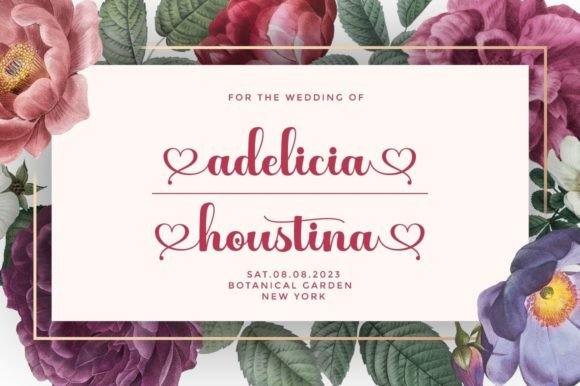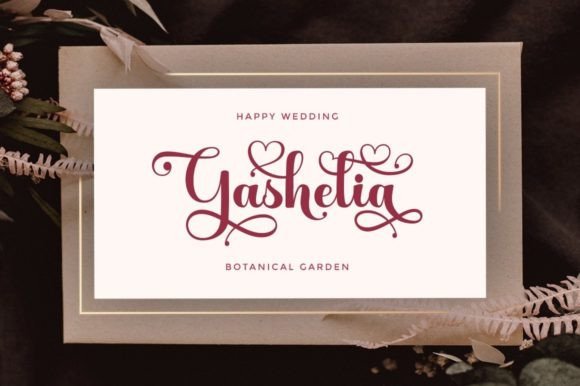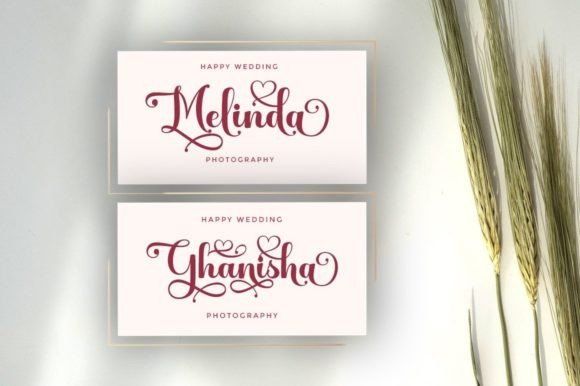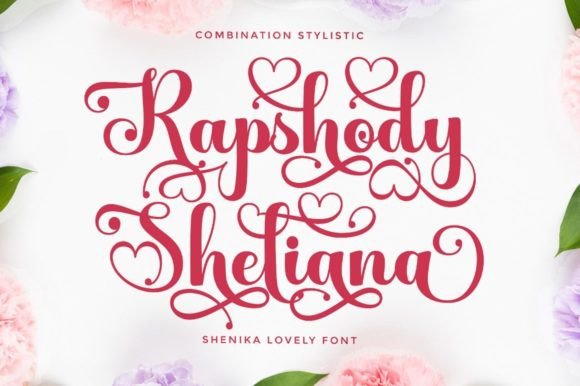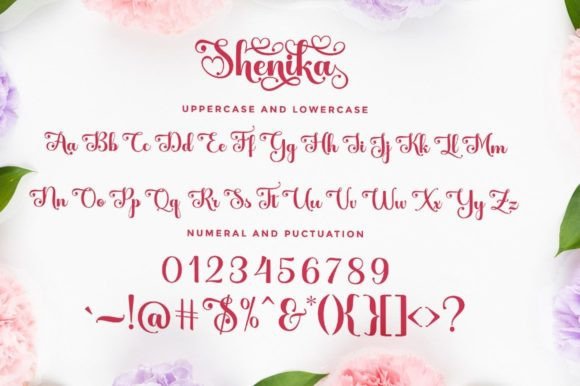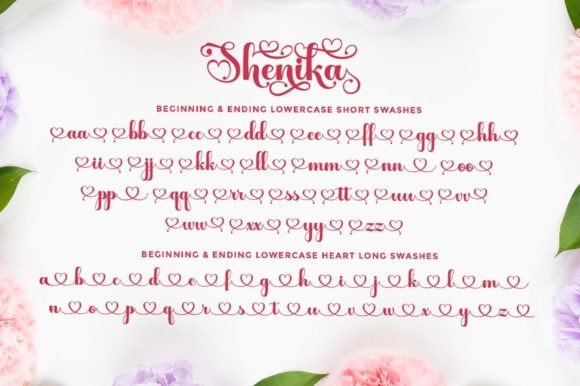
Introduction to Shenika Font
Have you ever stumbled upon the perfect design element that takes your creative project from meh to magical? That’s exactly what happened to me when I discovered the Shenika Font. Its adorable connecting hearts and wide variety of heart illustrations had me swooning. This lovely font is a design resource that’s perfect for adding a personal touch to any project, from magazines and crafts to personalized holiday decorations.
As a designer, I know how valuable it is to have a high-quality font that can elevate our work. The Shenika Font delivers, with its transparent background and free download making it a must-have in any design arsenal. Whether you’re working on a creative project or simply looking for a fun way to express yourself, this font is sure to bring a smile to your face.
Key Features of Shenika Font
- High-quality, elegant design ideal for creative projects
- Transparent background for seamless integration into various design elements
- Available for free download, making it a valuable design resource
- Includes a range of font sizes and resolutions for optimal use in various design applications
- Unique, cursive script style with subtle flair and sophistication
- Perfect for use in invitations, greeting cards, and other creative projects where a touch of elegance is desired
Honest Review: Shenika Font
As a designer, I’m always on the lookout for high-quality design resources that can elevate my creative projects. The Shenika Font has caught my attention, and I’m excited to share my honest review.
What works well: ✨ I love the elegant and sophisticated look of the Shenika Font. It’s perfect for designing luxurious and modern projects. The font also comes with a transparent background, making it easy to use and customize. The free download option is also a huge plus, making it accessible to designers of all levels.
Some limitations: ⚠️ The Shenika Font has a limited character set, which might be a drawback for designers who need a wide range of characters for their projects. Additionally, the font may not be suitable for use in large-scale or high-traffic applications.
Overall, the Shenika Font is a great design resource for designers who want to add a touch of sophistication to their creative projects. While it has some limitations, its elegant look and transparent background make it a great choice for designers who want a high-quality font without breaking the bank.
- Elegant and sophisticated look
- Perfect for modern and luxurious projects
The Shenika Font is ideal for creating high quality designs for social media, blog posts, and marketing materials. You can also use it to create a free download or a digital product. The font’s unique design makes it perfect for creative projects that require a touch of elegance and sophistication.
To get the most out of Shenika Font, use it in combination with other high quality fonts to create a unique design. You can also experiment with different font sizes and colors to create a visually appealing design. Additionally, use the font with a transparent background to create a creative project that stands out from the crowd.